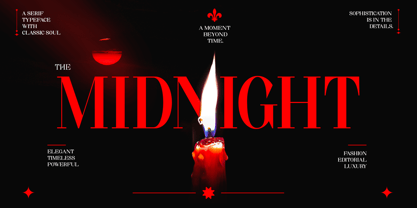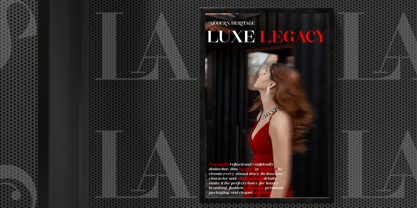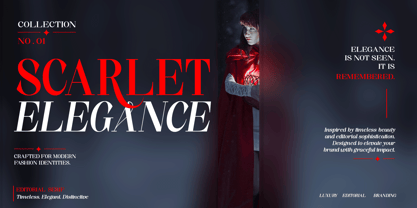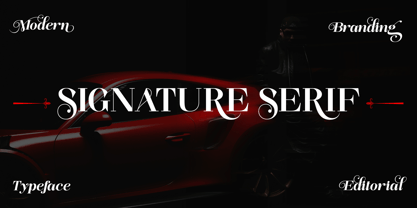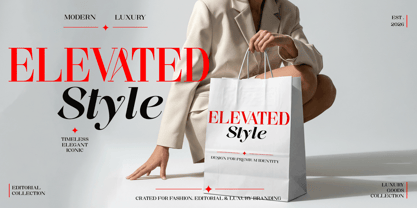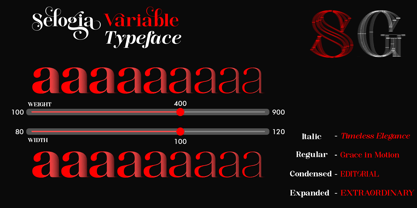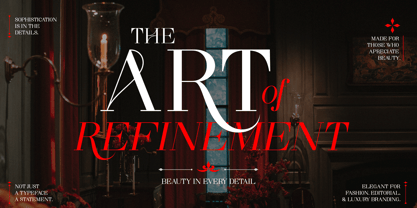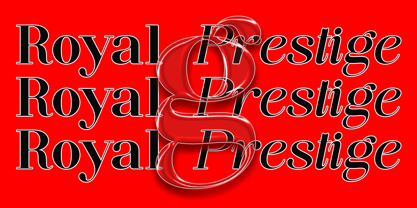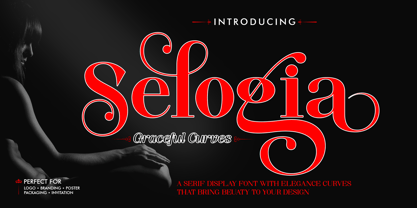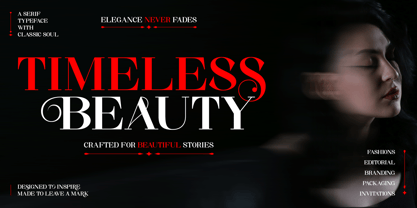
Selogia
The Selogia Font Family was designed by Rizki Ramadhan and published by Trick Type Style. Selogia contains 100 styles. More about this family
Selogia is a refined high-contrast serif typeface crafted for timeless elegance and contemporary sophistication. Inspired by the world of luxury fashion and editorial design, Selogia blends graceful curves, sharp serifs, and striking contrast to create a bold yet delicate visual presence.
Designed with versatility in mind, Selogia comes with Regular and Italic styles, along with Condensed and Expanded widths, allowing designers to create everything from elegant headlines to expressive branding systems. Whether used for fashion magazines, premium packaging, logos, invitations, beauty brands, or luxury advertising, Selogia delivers confidence, sophistication, and unforgettable style.